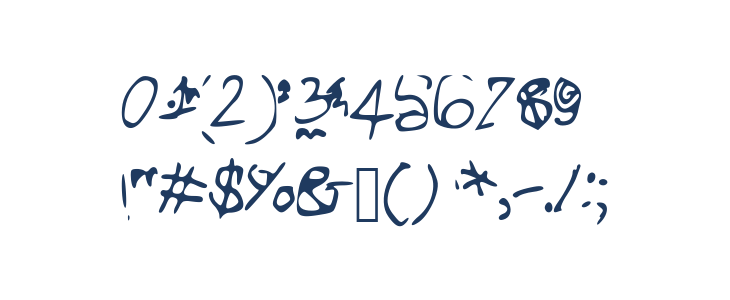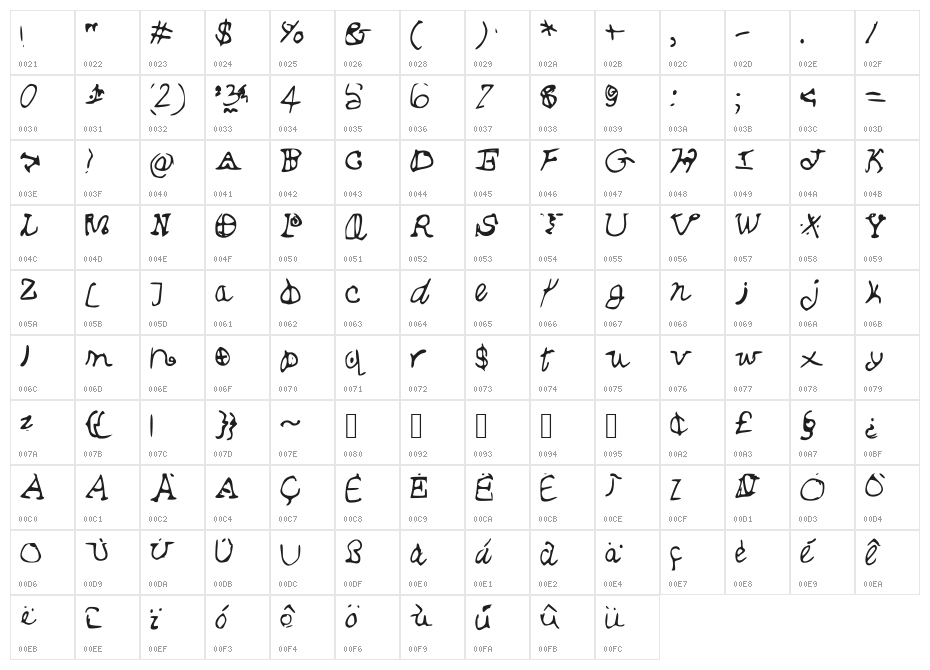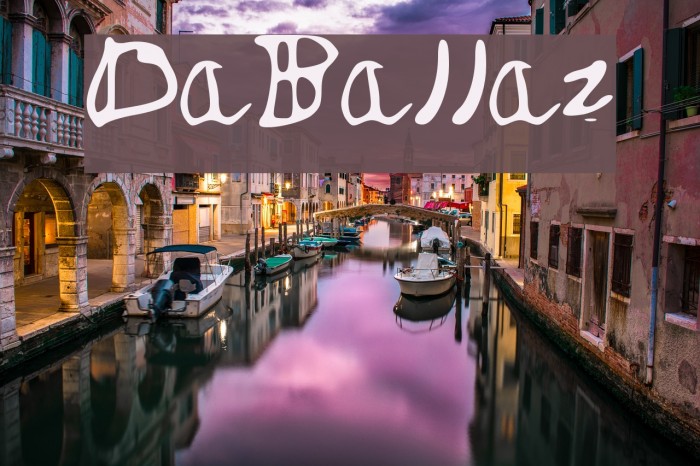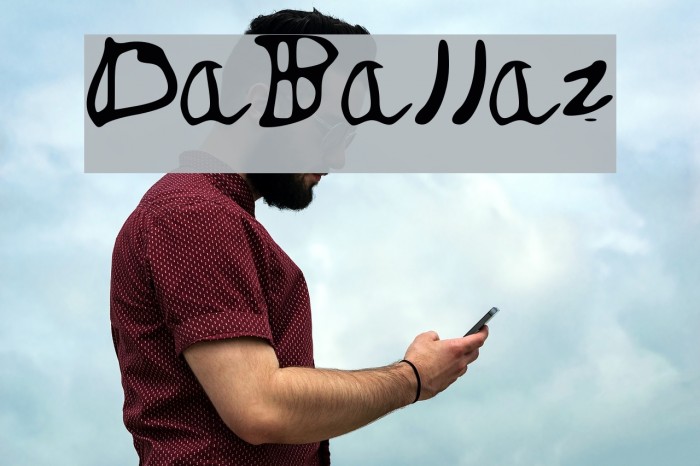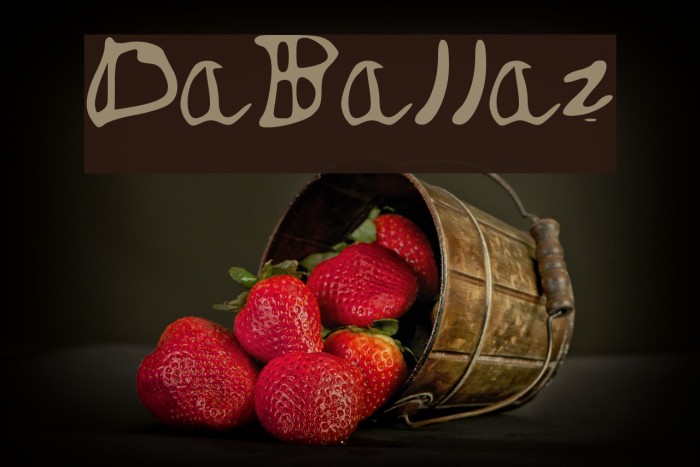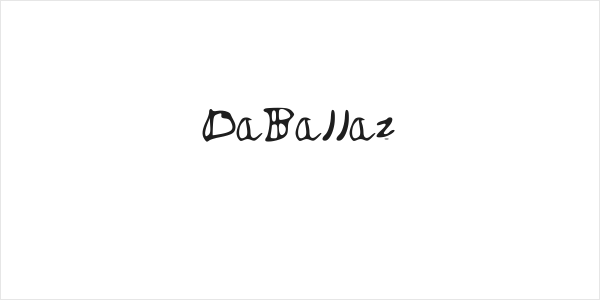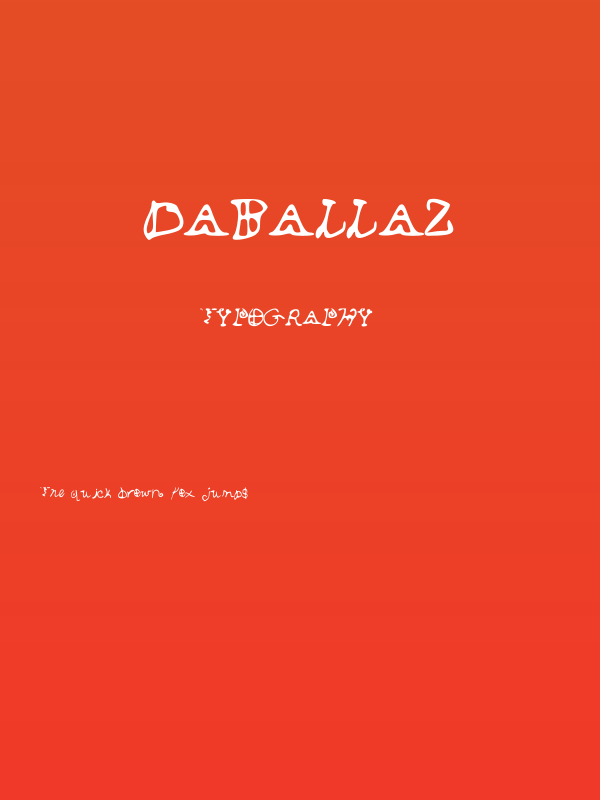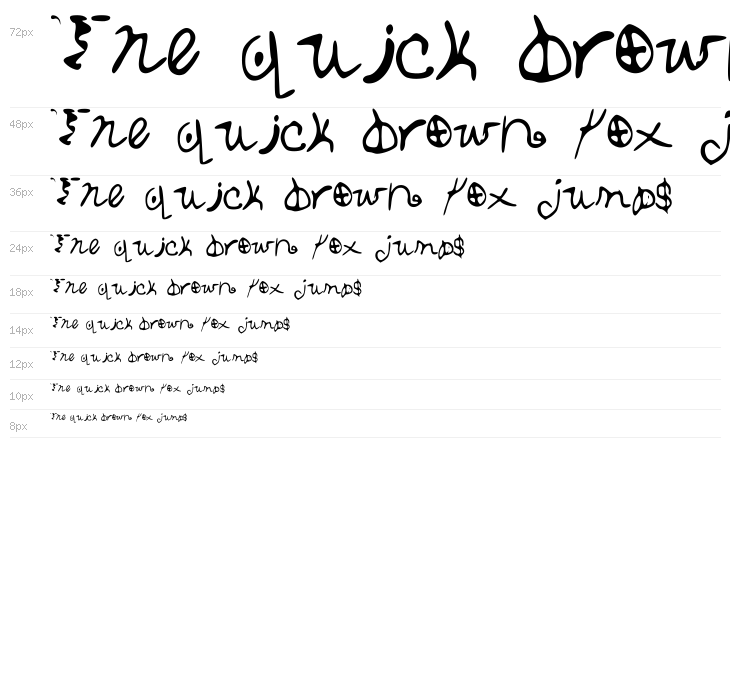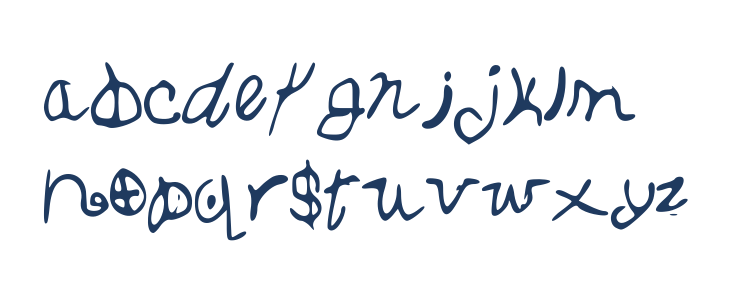
DaBallaz Font
DaBallaz Description
This font features a highly decorative and artistic style, characterized by its unique and irregular shapes. The letters have a playful and whimsical appearance, with varying stroke thicknesses and creative embellishments. The uppercase letters are bold and dynamic, while the lowercase letters maintain a fluid and cursive-like quality. Numbers and special characters follow the same artistic theme, adding a touch of flair and creativity. The overall design is expressive and unconventional, making it stand out in any context.
| Use Case | Headlines, Logos, Artistic projects |
| Proposed Projects | Ideal for creative projects such as posters, album covers, and artistic branding where a unique and eye-catching font is desired. |